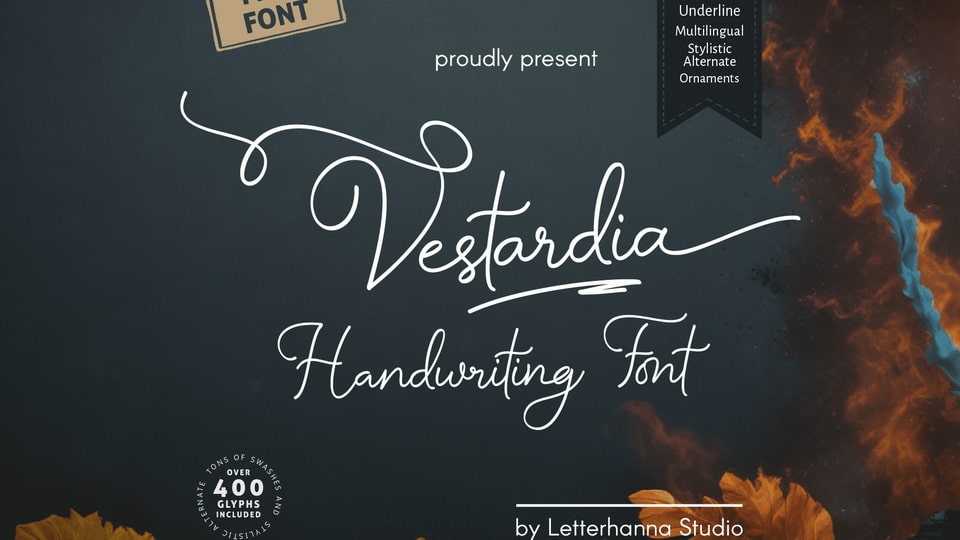
Download Vestardia font, a captivating new handwriting script typeface that transcends the ordinary. It boasts a treasure trove of stylistic alternates, swashes, and ligatures.
Designer: Letterhanna